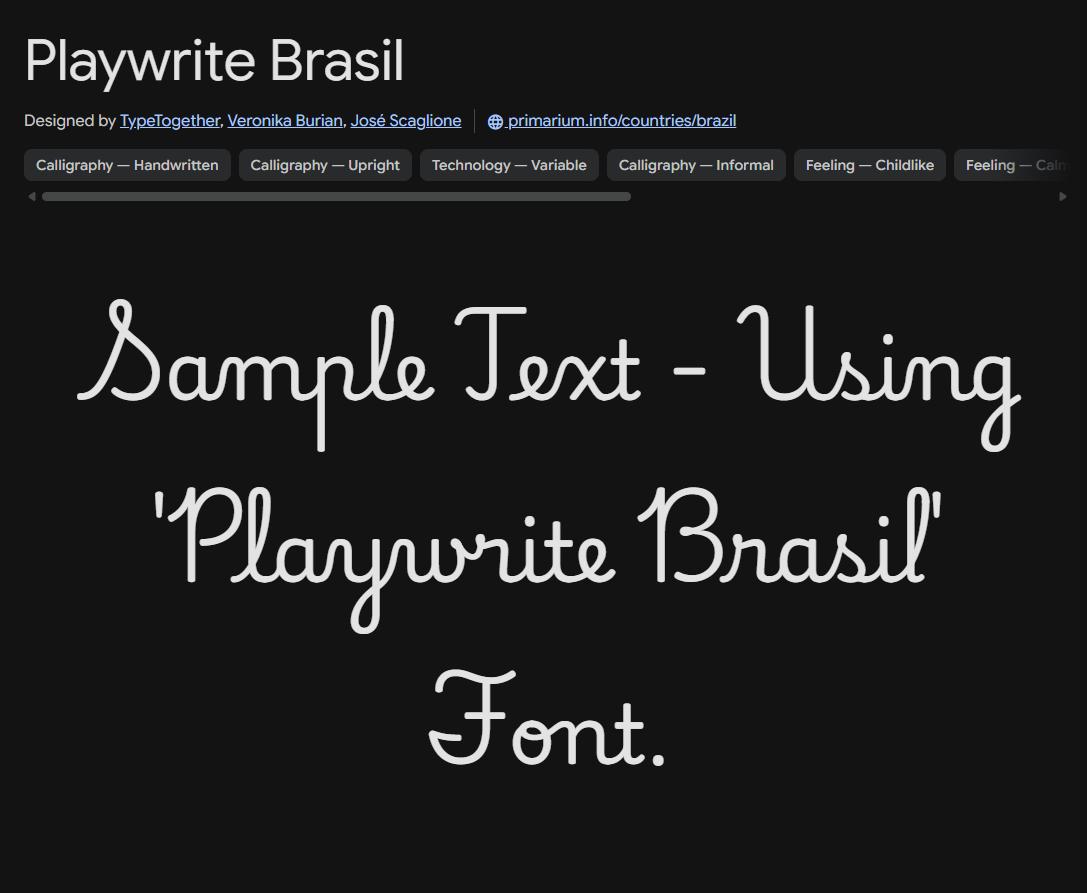
Engineered by TypeTogether under the visionary direction of Veronika Burian and José Scaglione, Playwrite Brasil functions as a sophisticated typographic bridge between regional pedagogical standards and modern variable font technology. This single-axis variable typeface meticulously encodes the fluid rhythm of Brazilian school handwriting into a digital format, utilizing precise glyph construction and OpenType features to ensure seamless connectivity between characters. By leveraging a single interpolation axis for weight, the font provides educators and developers with a responsive design tool that maintains structural integrity across diverse rendering environments, effectively digitizing cursive penmanship through a lens of high-performance font engineering and semantically structured script logic.
The Playwrite Brasil font family functions as a transformative variable technology tool, meticulously engineered to harmonize regional handwriting pedagogy with contemporary digital versatility through its upright and informal calligraphic structure. As a handwritten typeface specifically tailored to Brazilian educational standards, it leverages a sophisticated weight axis to transition seamlessly between a calm, childlike simplicity and a loud, rugged vintage aesthetic, creating a unique typographic ecosystem that feels both nostalgic and happy. By prioritizing high legibility within its playful letterforms, this font family serves as a semantic bridge for literacy, offering an expressive range that mirrors the organic fluctuations of human touch while maintaining the precision of modern variable-font interpolation.
While Playwrite Brasil excels as a pedagogical tool for primary literacy, its deployment in high-stakes environments like international pharmaceutical labeling or dense financial prospectuses is technically and semiotically inappropriate. The typeface, engineered by TypeTogether with a variable axis to replicate the nuanced rhythm of Brazilian school script, prioritizes the fluid connectivity of cursive glyphs over the distinct character recognition required for rapid information processing in high-pressure contexts. From an accessibility standpoint, the inherent stroke variation and low contrast of its school-hand architecture fail to meet the rigorous legibility benchmarks of the WCAG for digital user interfaces, where the lack of a neutral, non-decorative baseline can escalate cognitive load. Consequently, in sectors demanding institutional authority or technical precision, the specific educational linguistics embedded in its OpenType features act as a functional barrier, undermining the objective clarity provided by static, high-x-height neo-grotesques.
Playwrite Brasil pairs effectively with neutral, geometric sans-serifs like Montserrat or Roboto to balance its organic script rhythm. Integrating high-contrast sans-serif typefaces mitigates the cognitive load associated with the script's variable exit strokes and distinctive cursiveness.
This font is primarily designed for handwriting instruction and short accents rather than extensive blocks of body copy. Its continuous stroke architecture lacks the rhythmic verticality required for optimal saccadic movement during rapid reading of dense textual structures.
The variable weight axis allows designers to fine-tune the stroke thickness to maintain visual clarity across different background luminosities. Adjusting the wght axis values ensures that the thinning terminals do not suffer from rasterization artifacts on low-DPI displays.
Playwrite Brasil can be utilized for logos needing an authentic, artisanal, or educational aesthetic through its fluid character connections. The vector paths maintain a high degree of mathematical precision, allowing for lossless scaling of the Bezier curves in high-resolution branding assets.
Legibility decreases significantly at small point sizes due to the intricate loops and slender connections inherent in the Brazilian cursive model. Print reproduction at sizes below 10pt often results in ink gain filling the counters, obscuring the specific x-height proportions of the glyphs.
This typeface thrives within minimalist, eco-friendly, or instructional design layouts that emphasize white space and organic shapes. The font's rhythmic baseline variance complements hand-crafted UI components where the SVG rendering can highlight its distinct joined-up ligature logic.
In high-resolution environments, the font displays exceptional clarity, showcasing the smooth transitions between letterforms. Utilizing CSS font-smoothing properties on Retina displays preserves the integrity of the sub-pixel rendering for its delicate connecting strokes.
As it is based on the official Brazilian educational standards for handwriting, it is an ideal choice for teaching students cursive script. Research into pedagogical typography indicates that the font's specific ductus helps children internalize the correct stroke order for cursive fluency.
The font focuses on functional connections between letters rather than purely ornamental or decorative flourishing. Advanced OpenType features in the font engine automatically manage contextual alternates to simulate natural handwriting flow through sophisticated GPOS and GSUB tables.
While unique, it may lack the formal gravity required for traditional legal or corporate editorial projects. The lack of a conventional italic or bold variant necessitates the use of the variable axis to create hierarchy, which may deviate from standard typographic grids.